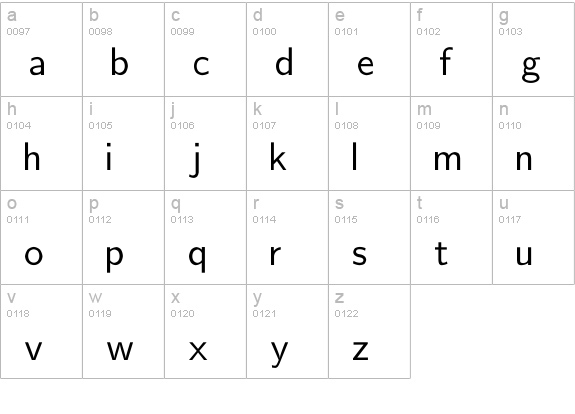
CM_SansSerif Regular Font Details
CM_SansSerif Regular is the standard, neutral variant in the CM_SansSerif typeface family \xE2\x80\x94 well suited to general body text, paragraphs, and standard typographic work.
CM_SansSerif Regular is a versatile and modern font that exudes simplicity and elegance. With clean lines and a sleek design, this font is perfect for a wide range of projects, from branding to web design. Its balanced proportions and smooth curves make it easy to read and pleasant to the eye. What makes CM_SansSerif Regular even more appealing is that it is available for free download at FontsMarket.com. This means you can easily access and use this high-quality font without any cost, making it a valuable asset for designers and creatives looking to enhance their projects with a professional touch. Whether you're designing a logo, creating a website, or crafting marketing materials, CM_SansSerif Regular is a fantastic choice that will elevate your work to the next level. Download it for free today and add a touch of sophistication to your designs!